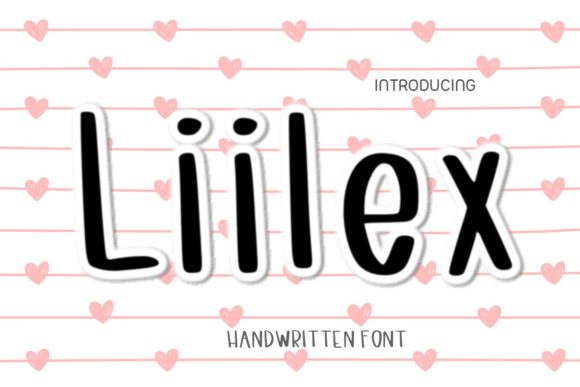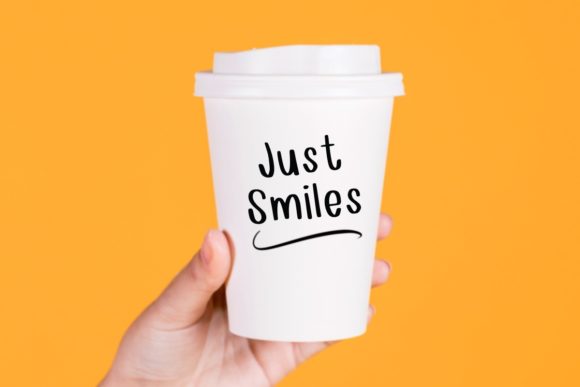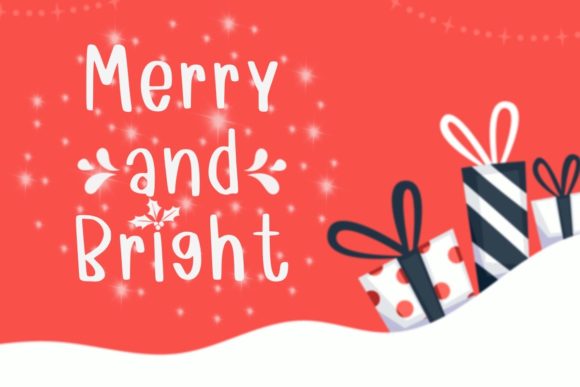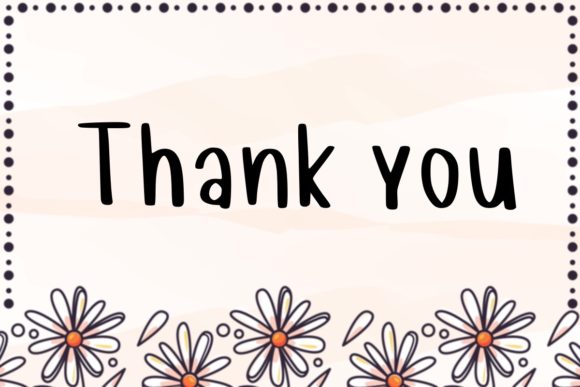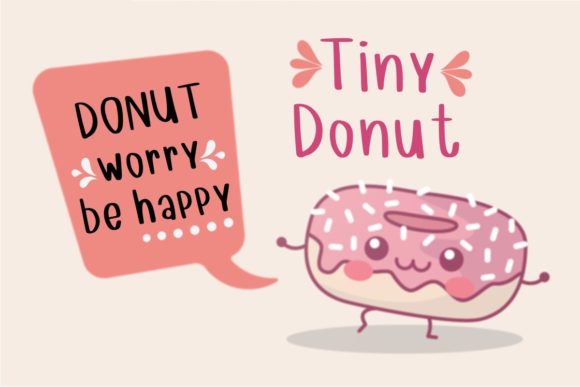
About Liilex Font
Liilex is a cute and casual handwritten font. It features an incredibly cute style, while still keeping a friendly feel. This font is the perfect for making gorgeous wedding invitations, beautiful stationary art, eye-catching social media posts, logos, branding, cute greeting cards and much more!